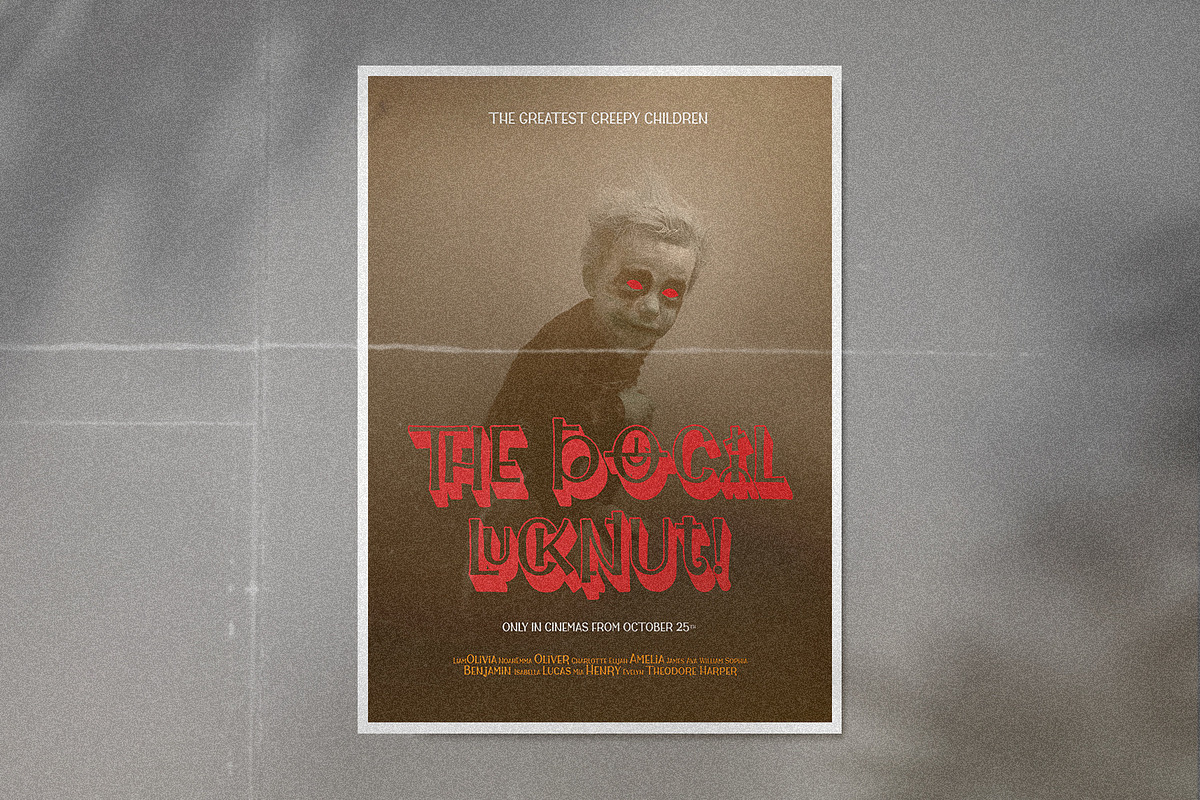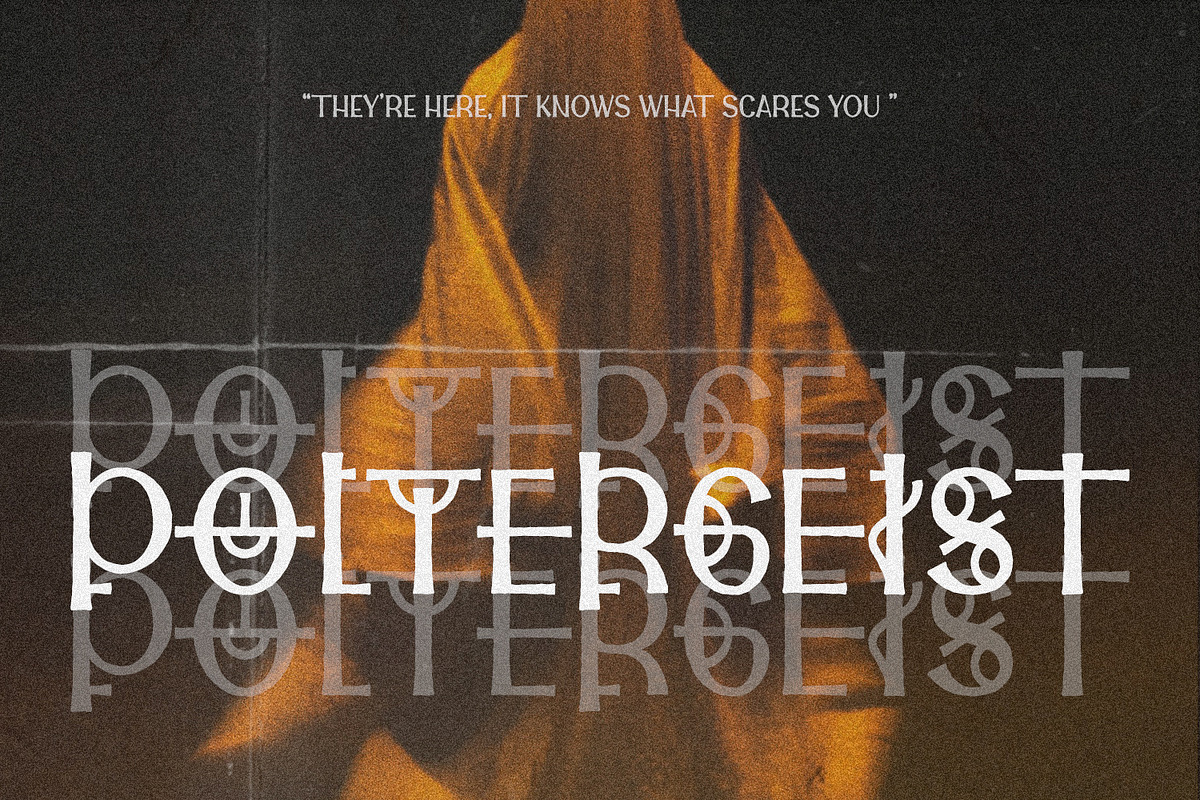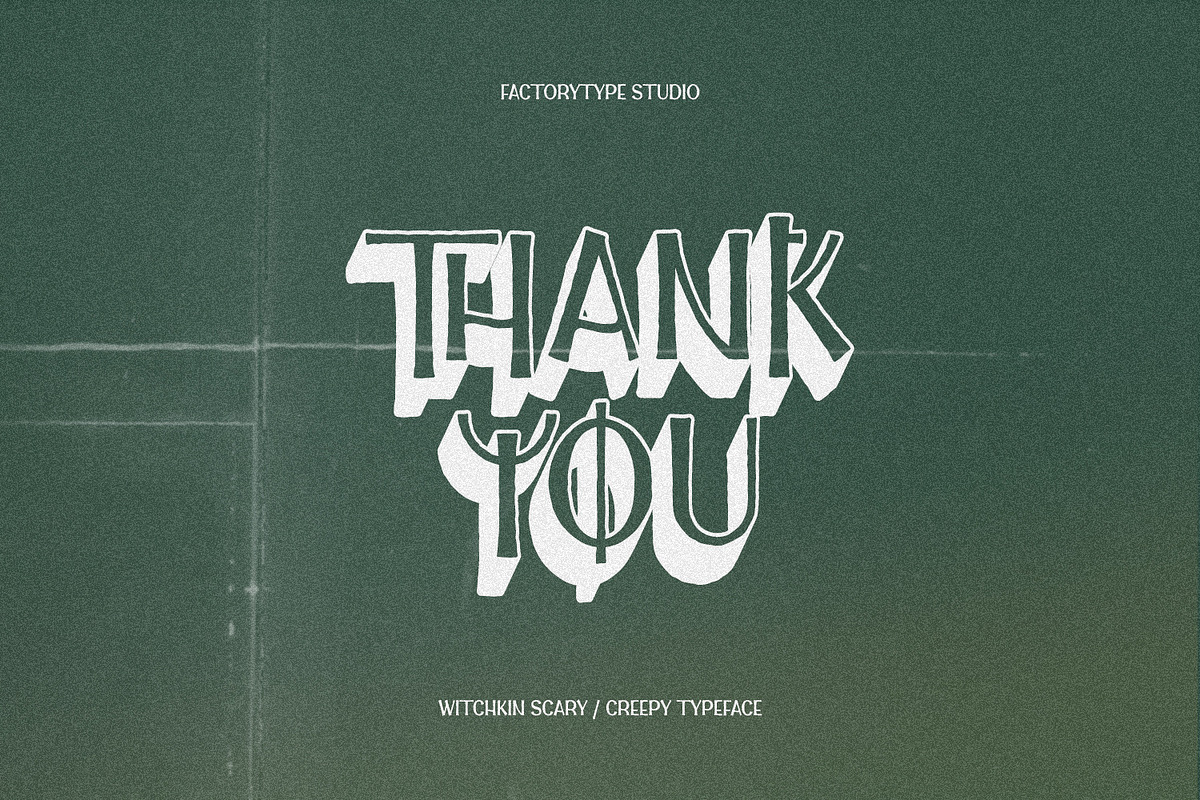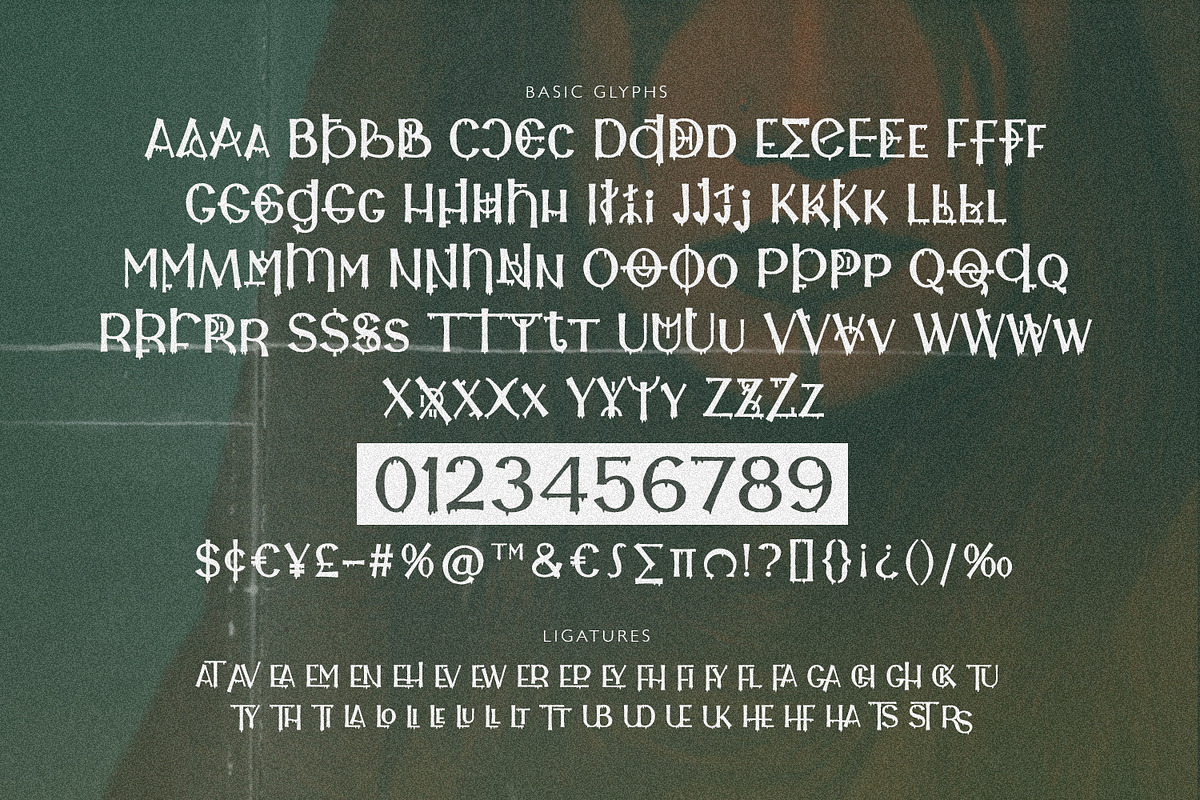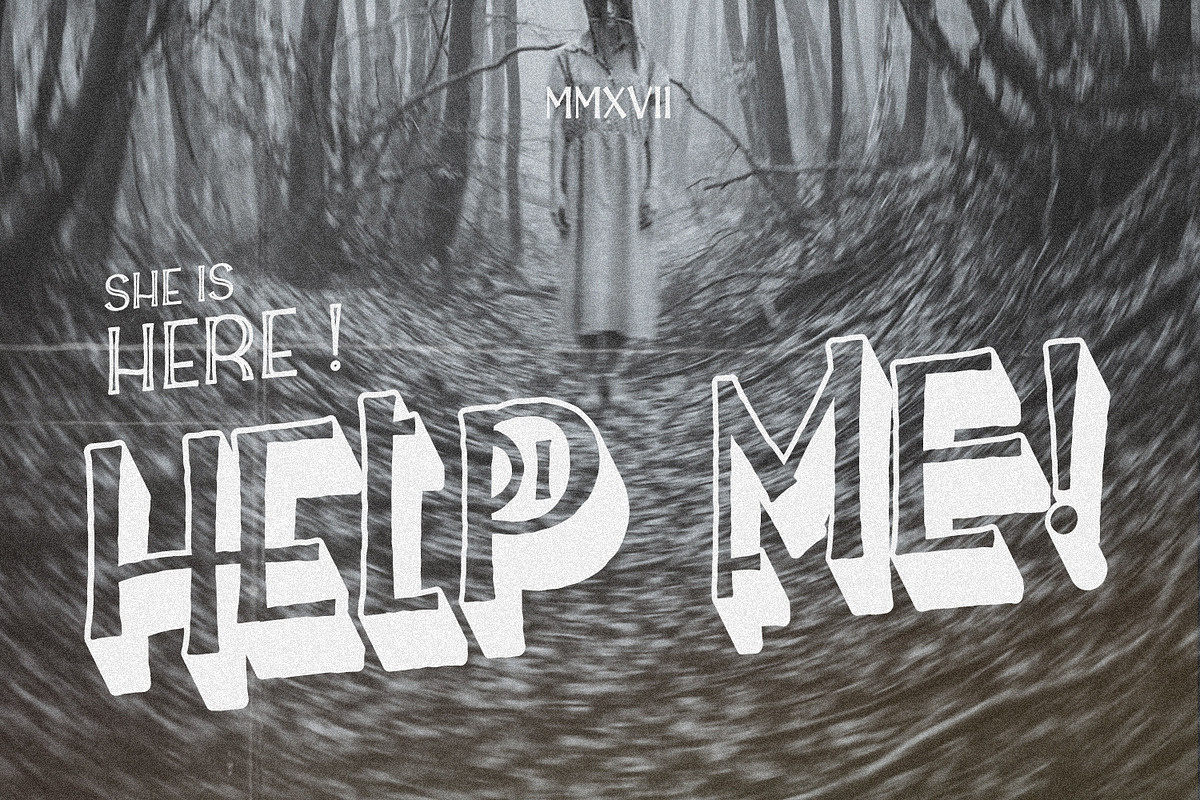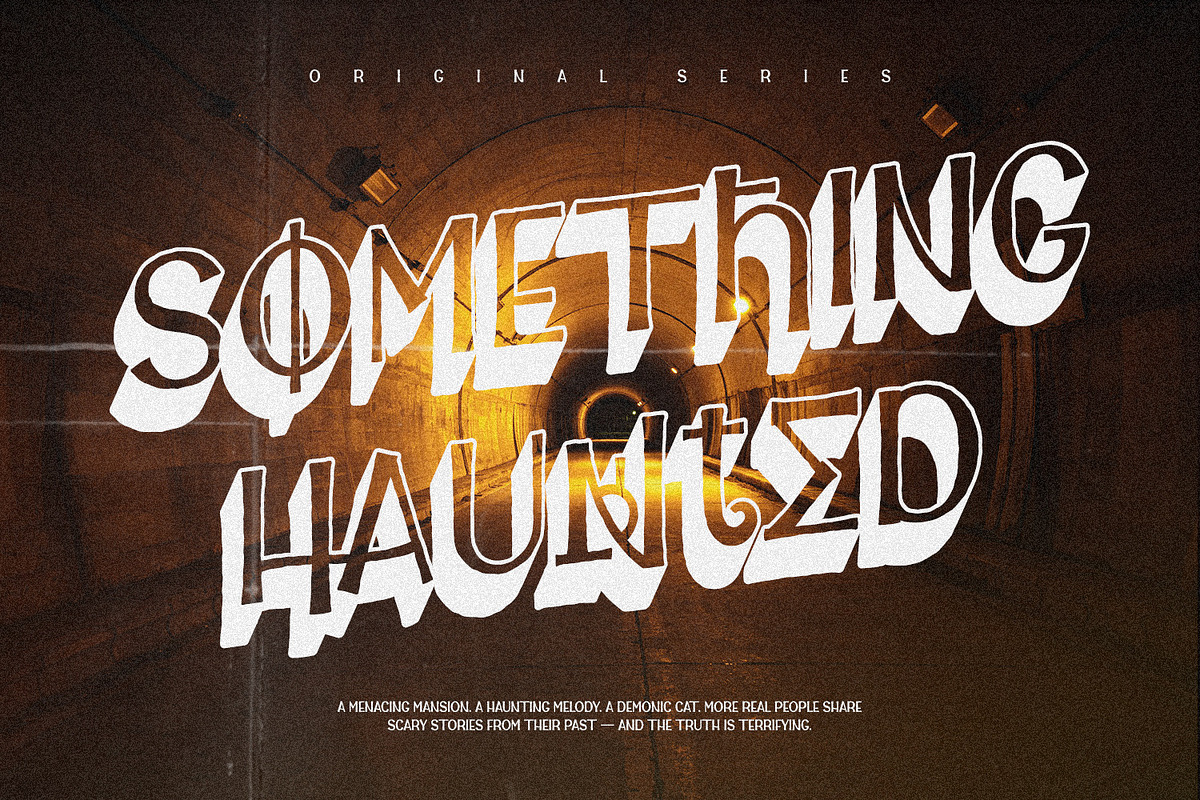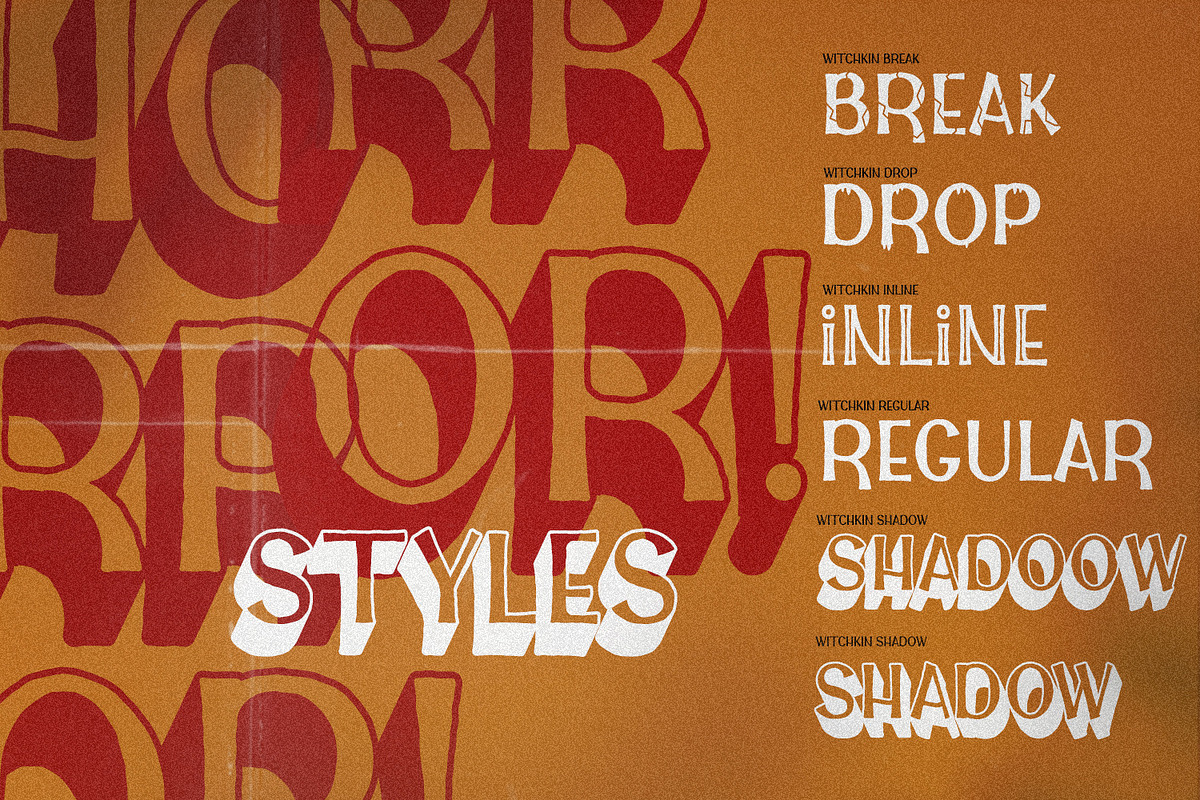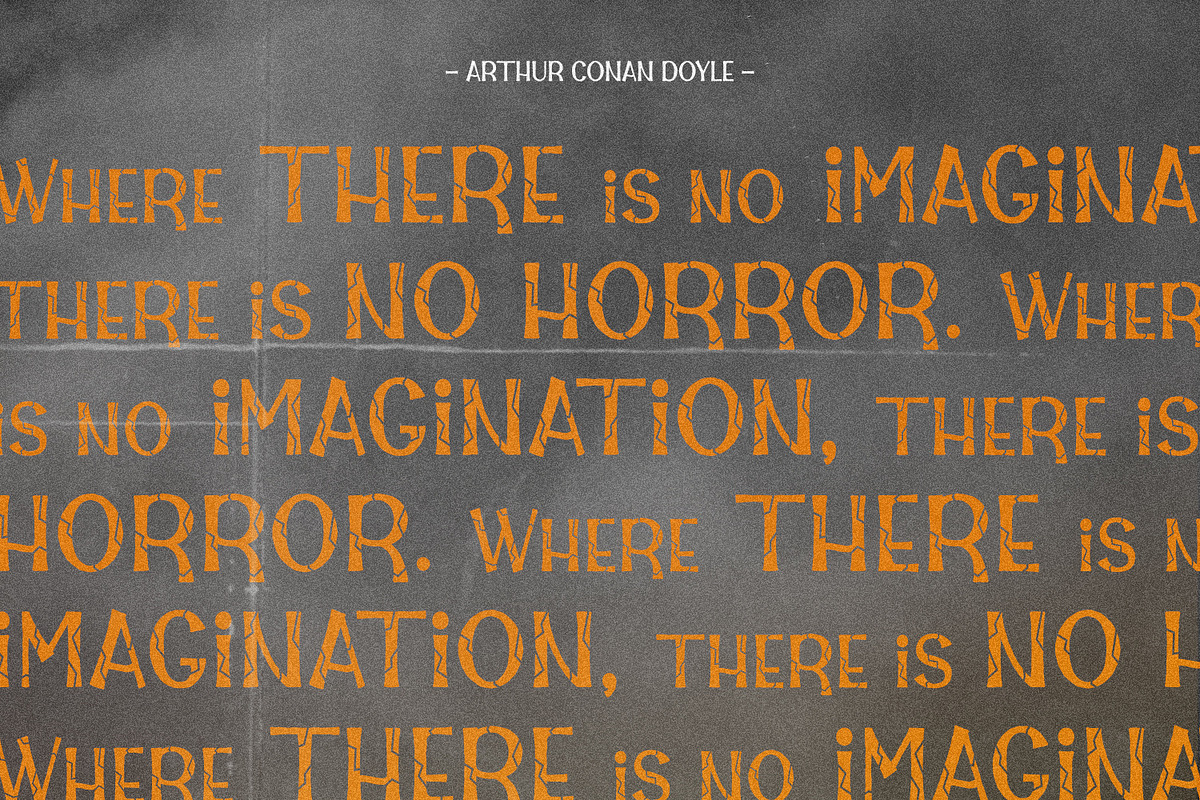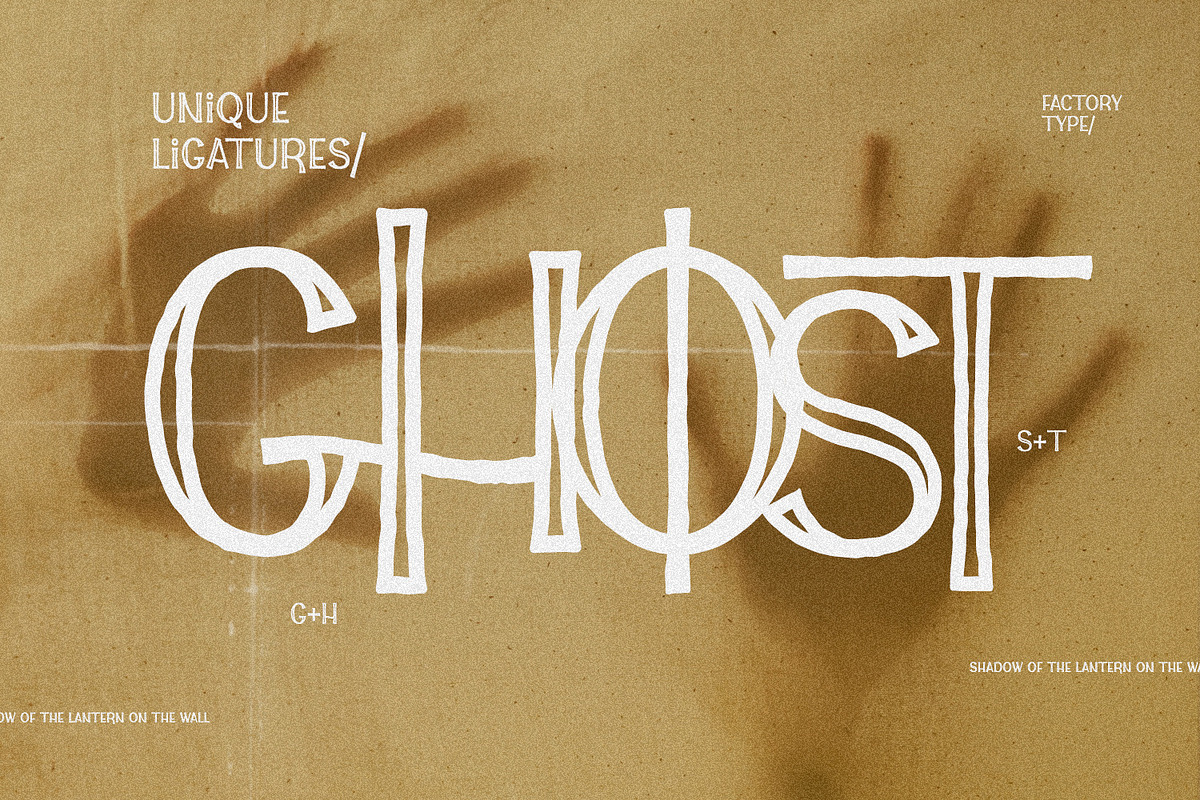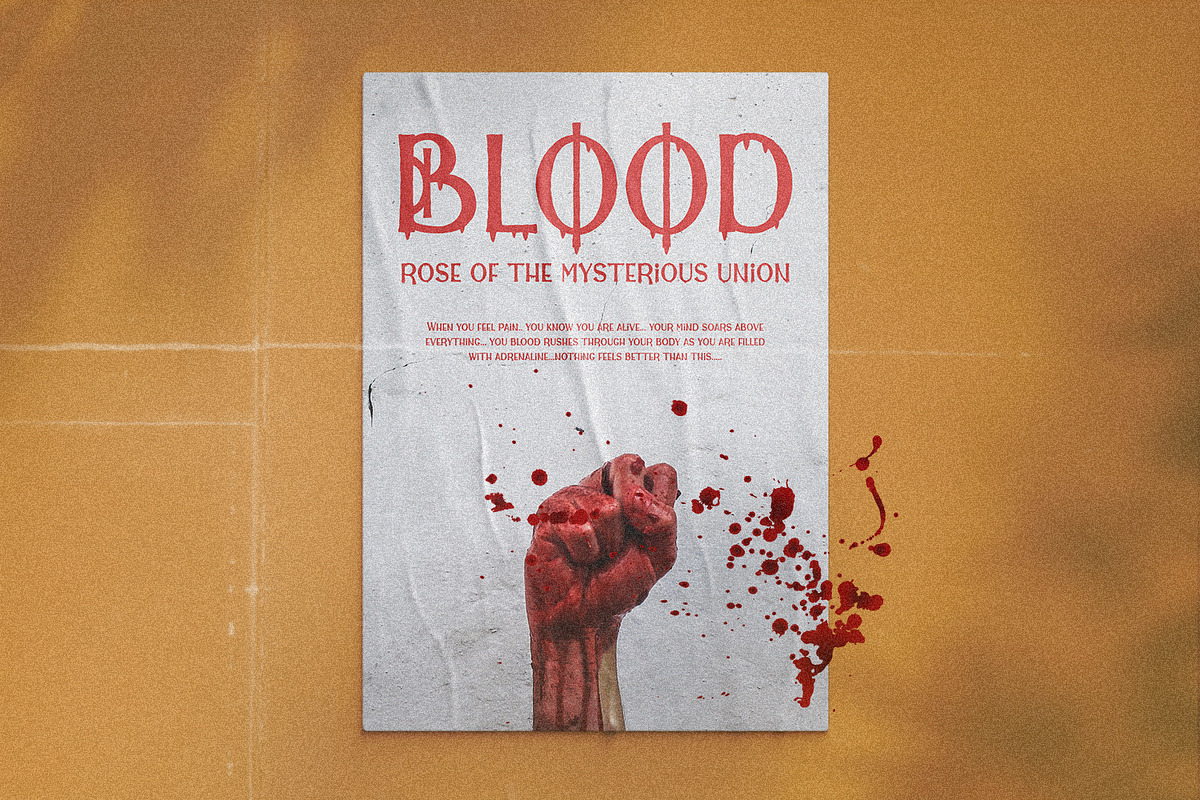
Witchkin - Scary Font
Are you looking for a font that can take your horror projects to the next level? Look no further than Witchkin – the perfect font for all your spooky needs! With its unique atmosphere and high-quality design, you’ll be able to create a project that will give your audience chills. Try Witchkin and bring your nightmares to life!
- 6 Styles
- Stylistic Ligatures
- Multilingual Support for ä ö ü Ä Ö Ü ...